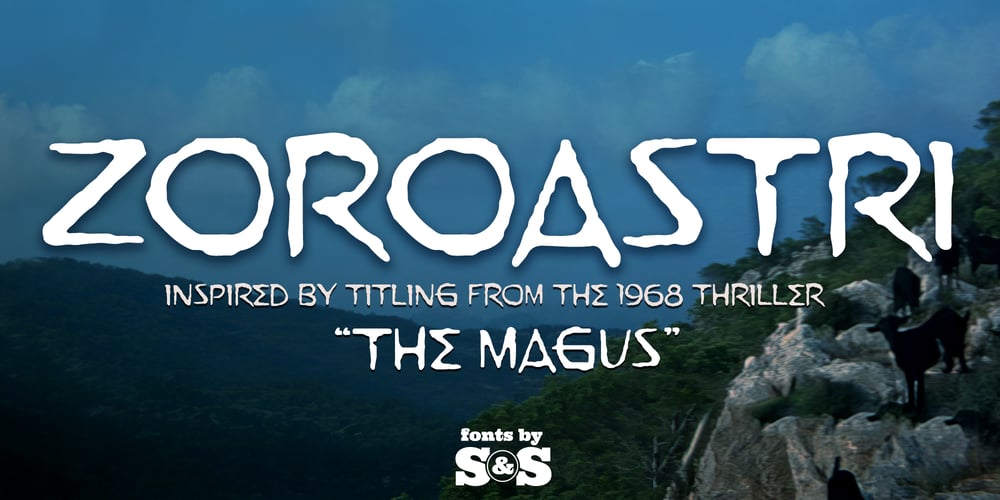
Zoroastri Font Family was designed by Jim Lyles, Brian J. Bonislawsky and published by Stiggy & Sands. Zoroastri contains 1 styles and family package options. Zoroastri is a display sans typestyle that was inspired by the movie titling sequence from the 1968 film “The Magus”. It’s an all capitals typeface twith some subtle variances. It’s rugged, hand-drawn appearance was inspired by screen captures of the original credits sequence and fleshed out to a full font, complete with all the wonderful nuances of its inspiration.Approx. 382 Character Glyph Set: Zoroastri comes with a glyphset that includes standard & punctuation, international language support, and basic ligatures.